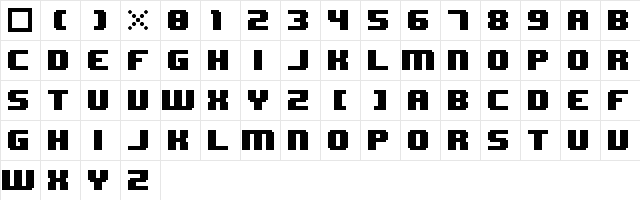
8BIT WONDER Nominal
Style: Nominal
Design Context for 8BIT WONDER
8BIT WONDER is a composed and adaptable typeface that performs quietly and consistently across a wide range of design contexts.
Pro Tip: Use 8BIT WONDER in both headline and body roles to test its range before committing to a single application.